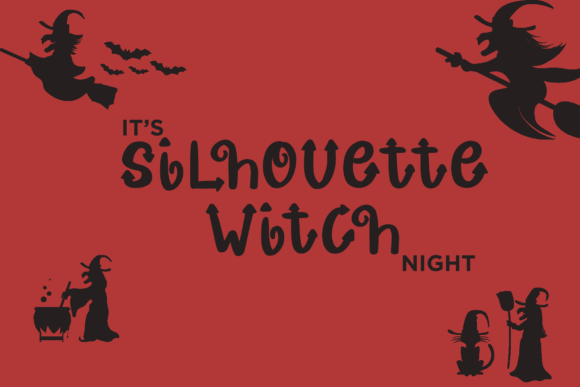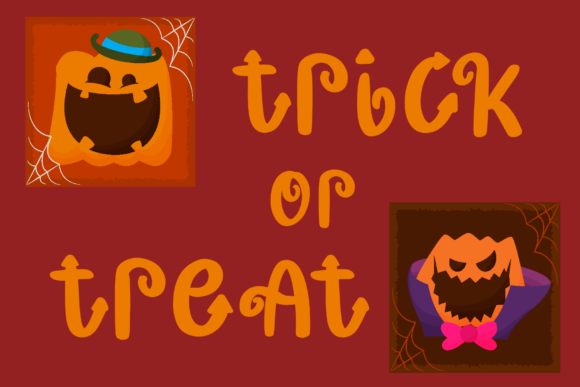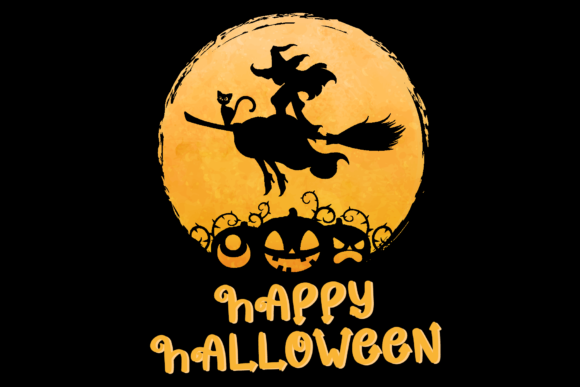
Introducing Curly Witch Font: The Perfect Addition to Your Spooky Halloween Designs
Are you a designer or crafter looking for a unique and playful font to add a touch of magic to your Halloween cards, greeting cards, and other spooky creations? Look no further than Curly Witch Font! This fun handwritten font is specifically designed to bring a sense of whimsy and wonder to your designs, making it the perfect choice for anyone looking to create eye-catching and engaging content.
What is Curly Witch Font?
Curly Witch Font is a carefully crafted handwritten font that is perfect for creating spooky yet fun designs. Its curly and playful style is reminiscent of classic witchy charm, making it an ideal choice for Halloween-themed projects. Whether you’re designing cards, invitations, or other materials, Curly Witch Font is sure to add a touch of personality and flair.
Key Features of Curly Witch Font
- Handwritten style: Curly Witch Font boasts a unique handwritten style that gives it a personal and playful touch.
- Spooky yet fun: This font is perfect for Halloween-themed designs, but its playful style also makes it suitable for other fun and creative projects.
- Easy to read: Despite its curly and whimsical style, Curly Witch Font is easy to read, making it perfect for use in a variety of designs.
- Versatile: This font can be used in a range of designs, from cards and invitations to posters and social media graphics.
Uses for Curly Witch Font
Curly Witch Font is a versatile font that can be used in a variety of designs, including:
- Halloween cards and invitations: Add a touch of spooky charm to your Halloween cards and invitations with Curly Witch Font.
- Greeting cards: This font is perfect for creating fun and playful greeting cards for any occasion.
- Posters and flyers: Use Curly Witch Font to create eye-catching posters and flyers for Halloween events or parties.
- Social media graphics: Add a touch of personality to your social media graphics with Curly Witch Font.
Why Choose Curly Witch Font?
There are many fonts available that claim to be perfect for Halloween designs, but Curly Witch Font stands out from the crowd. Here are just a few reasons why:
- Unique style: Curly Witch Font has a unique and playful style that is sure to grab attention.
- High-quality: Curly Witch Font is a high-quality font that is designed to produce crisp and clear results.
Tips for Using Curly Witch Font
Here are a few tips for getting the most out of Curly Witch Font:
- Use it sparingly: While Curly Witch Font is a fun and playful font, it can be overwhelming if used too much. Use it sparingly to add a touch of personality to your designs.
- Experiment with colors: Curly Witch Font looks great in a range of colors, so don’t be afraid to experiment and find the perfect color for your design.
- Pair it with other fonts: Curly Witch Font pairs well with other fonts, so consider pairing it with a bold or serif font to add contrast and interest to your design.
Curly Witch Font is a fun and playful font that is perfect for adding a touch of magic to your Halloween designs. Its unique handwritten style and spooky yet fun vibe make it an ideal choice for designers and crafters looking to create eye-catching and engaging content. With its ease of use, high-quality design, and versatility, Curly Witch Font is sure to become a go-to font for anyone looking to add a touch of personality to their designs.